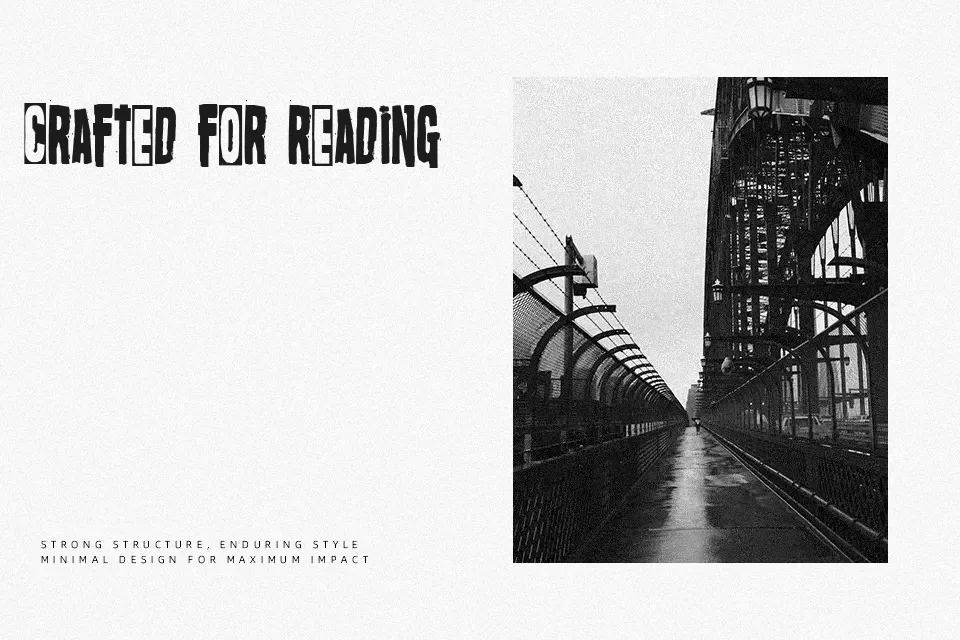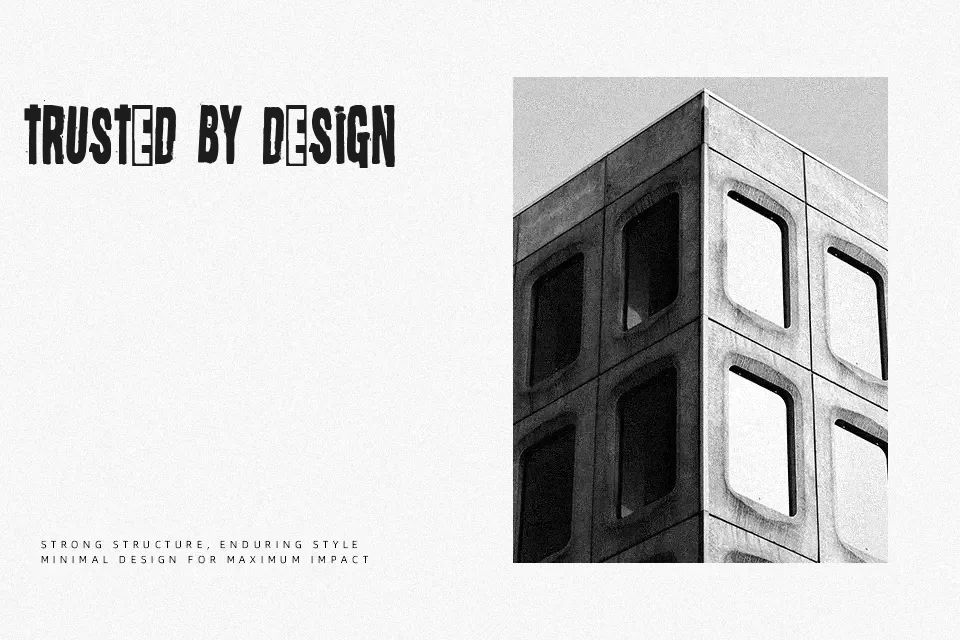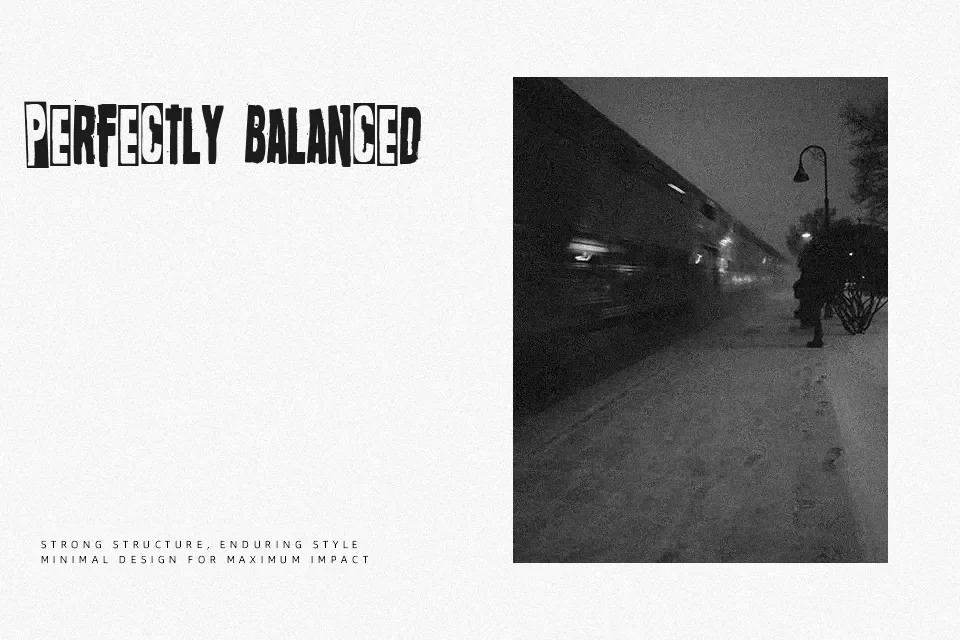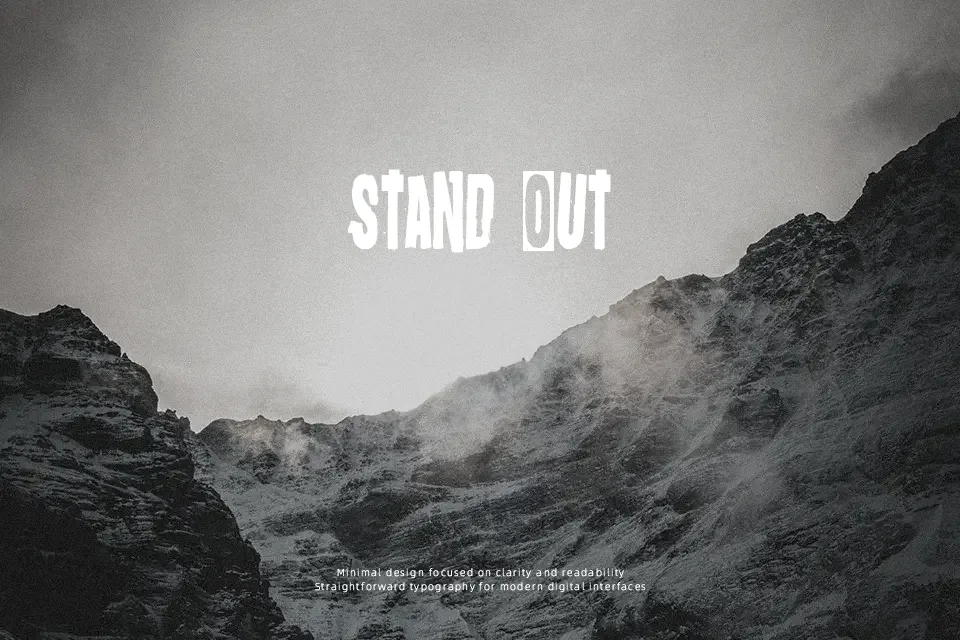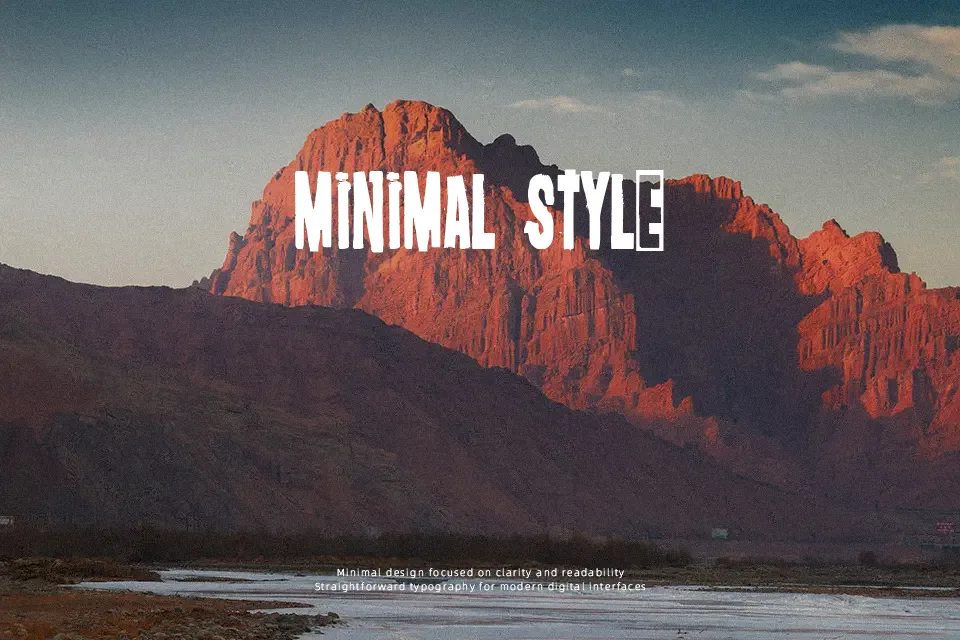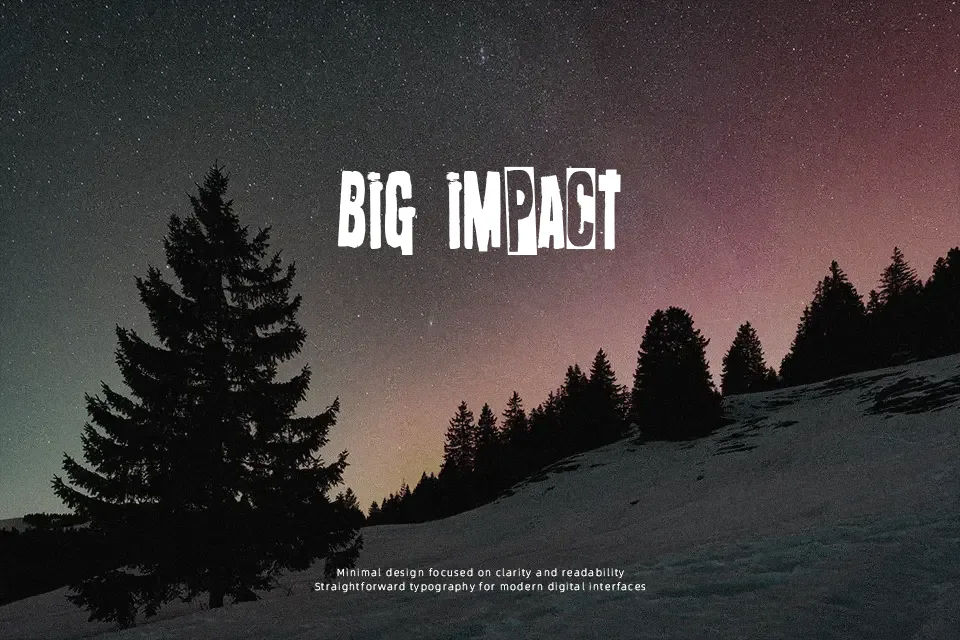
Oi! Survive Poster Font
Oi! Survive Poster Font works best as large display lettering for designs that need an abrasive, handmade look. The letterforms use thick strokes, uneven contours, and compact proportions that create a dense, forceful rhythm. Spacing appears tight, helping short words hold together in poster layouts and graphic headlines. Its rough shapes remain recognizable at larger sizes, particularly in music artwork, stickers, and apparel prints. However, the distressed construction makes small text and extended reading less comfortable. The typeface is most effective when used sparingly, with enough surrounding space to preserve each character’s silhouette.
Best For: punk music posters,album cover titles,apparel graphics,event flyers
Perfect for fashion, headline, and music, with a bold and decorative style.